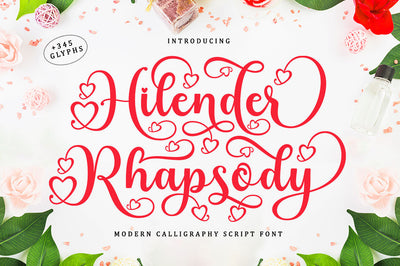
Hilender Rhapsody - 4 Type Font
Hilender Rhapsody Modern Script is one of those cute script fonts that comes with a very beautiful character change, a kind of modern touch decorative script, designed with high detail to bring out an elegant style.
Hilender Rhapsody is attractive because the typeface is pleasing to the eye, clean, feminine, sensual, glamorous, simple and very easy to read, thanks to its many extravagant letter joints. There are a number of other worthy alternative styles for each letter. Cute style is very suitable to be applied in various formal forms such as invitations, labels, restaurant menus, logos, fashion, make up, stationery, novels, magazines, books, greeting/wedding cards, packaging, labels or all kinds of advertising purposes. . . . . .
Hilender Rhapsody has alternative glyphs, including multiple language support. With OpenType features with alternative styles and elegant ligatures. The OpenType features don't work automatically, but you can access them manually and for best results your creativity will be required in combining variations of these Glyphs. I highly recommend using a program that supports OpenType features and the Glyphs panel such as Adobe Illustrator, Adobe Photoshop CC, Adobe InDesign, or CorelDraw, so that you can view and access all variations of Glyphs.